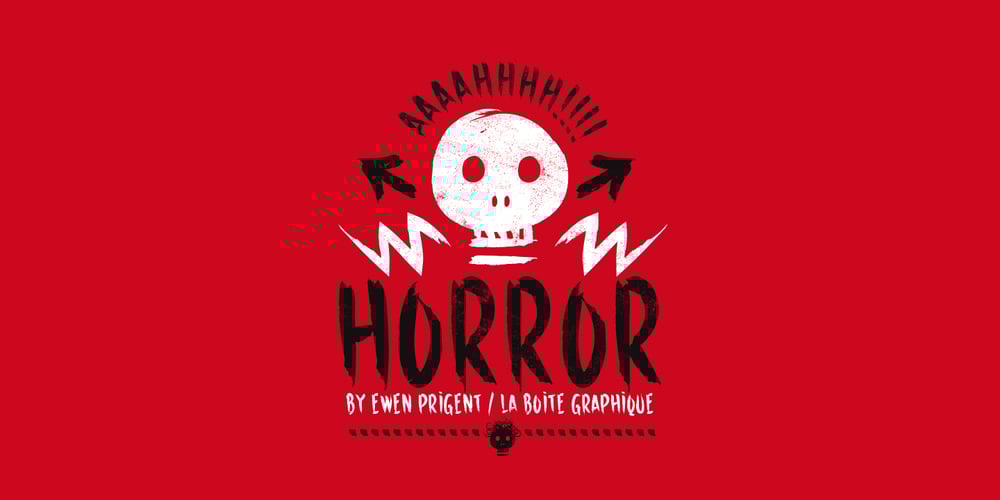
Horror Font Family was designed by Ewen Prigent and published by La Boîte Graphique. Horror contains 1 styles and family package options. Horror is, as its name suggests, a terribly great expressive typography to illustrate topics such as: nocture atmosphere, horror, zombie movie, hard rock, festival, halloween … Accompanied many ornaments you can easily illustrate these themes.